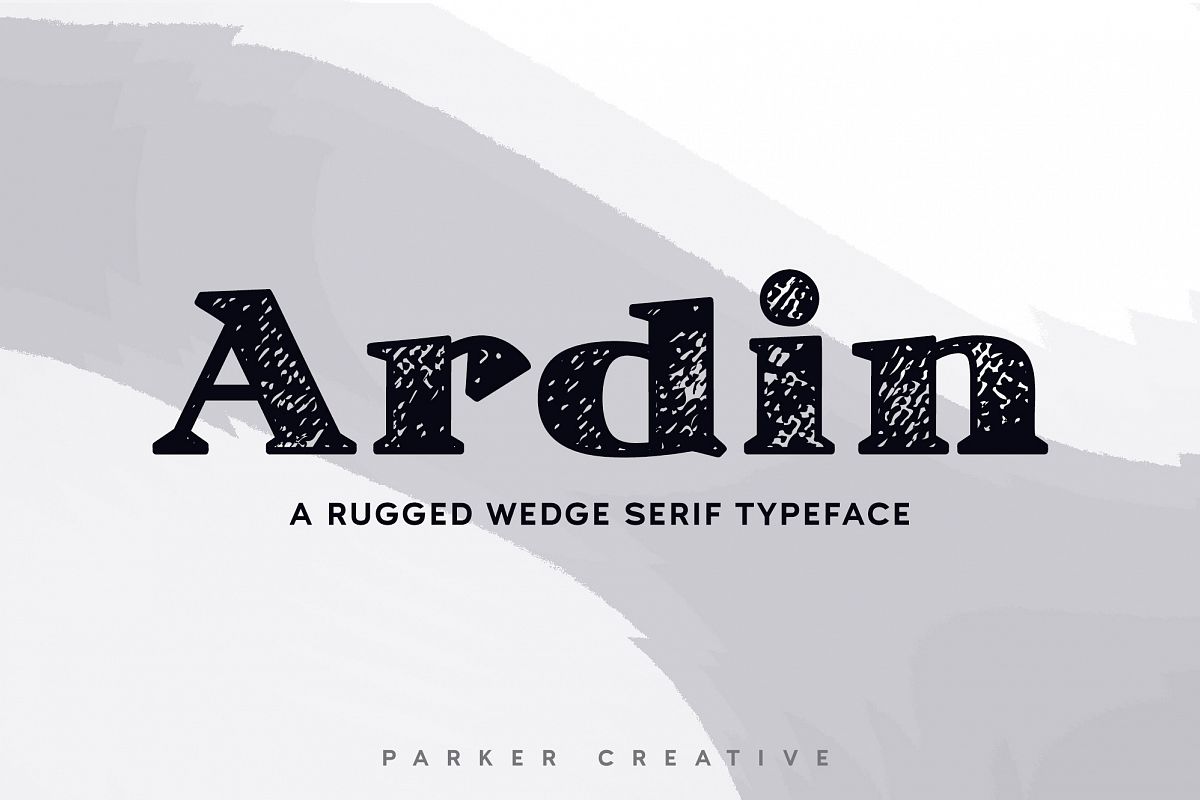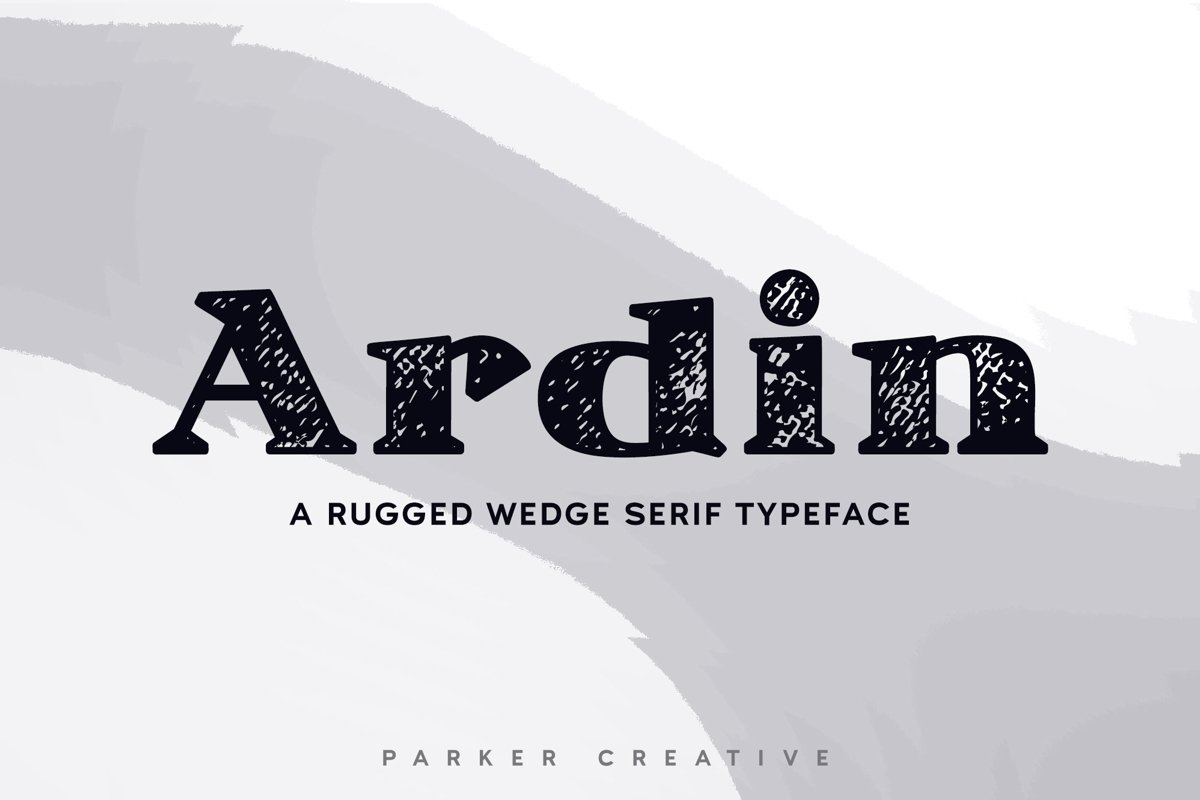
Ardin | Distressed Wedge Serif
Meet Ardin, a wedge serif that merges letter characteristics of traditional serifs with textures and styles found almost exclusively in modern sans-serif typefaces. The result is a bold design that feels distinctly classic, powerful, and handcrafted. With Ardin, you can make your projects (logos, product sheets, marketing materials, business cards, websites, etc.) look sophisticated while feeling both approachable and fresh.
Also included with Ardin is Ardin Swashes: 10 original swashes designed to match Ardin's look and feel.